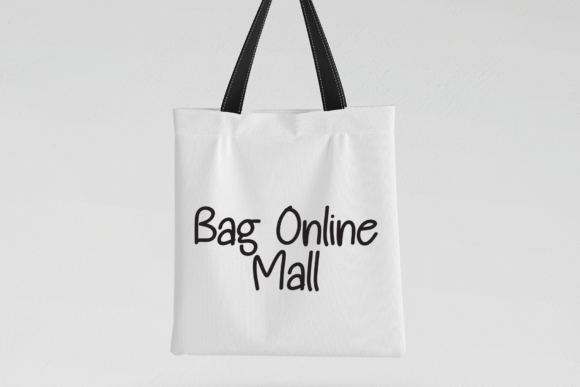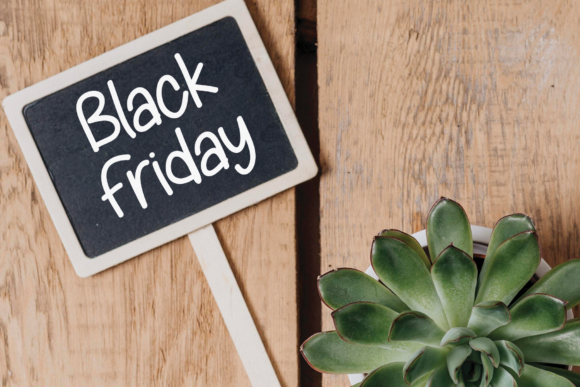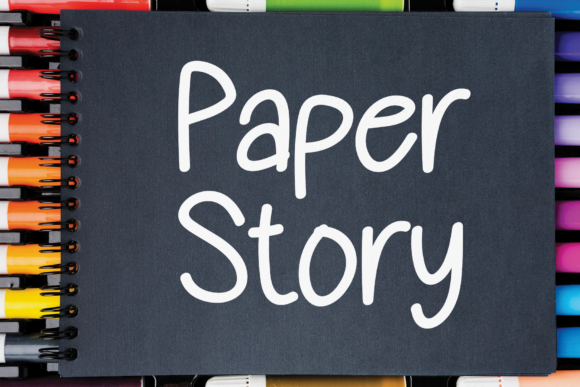
About Handwriten Font
Handwriten is a cute, simple and cute handwritten font. Its informal style and casual vibe will make this font a go-to choice for each of the creations that require a relaxed touch.